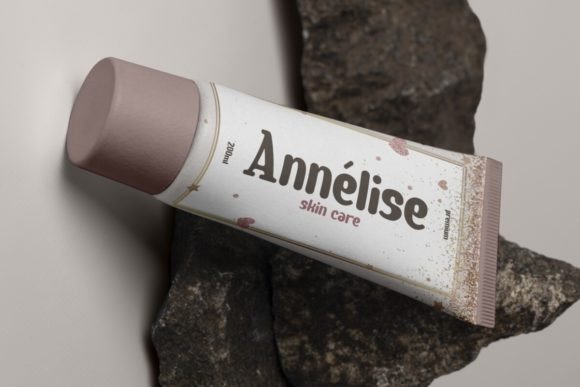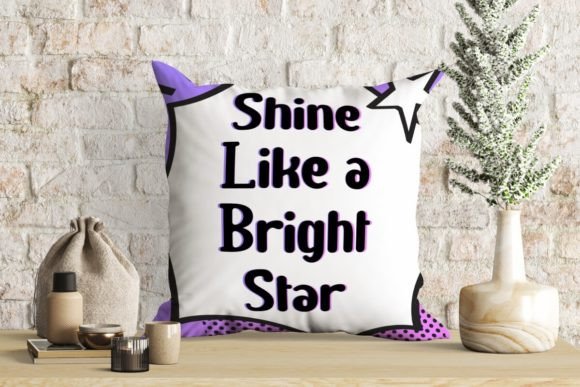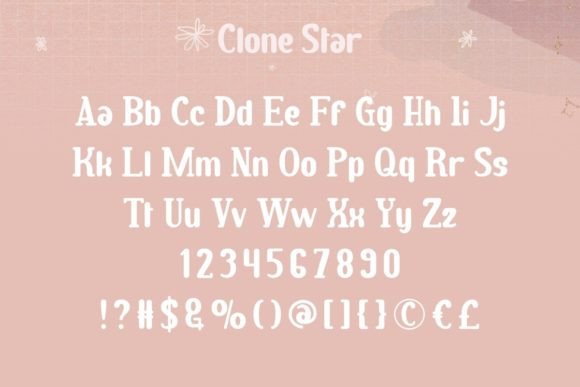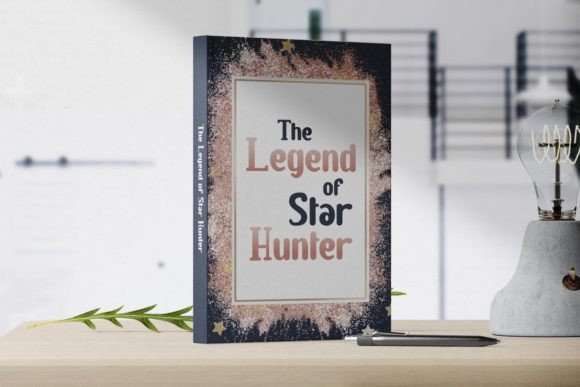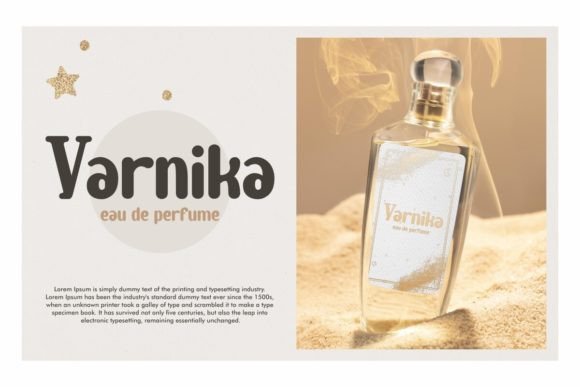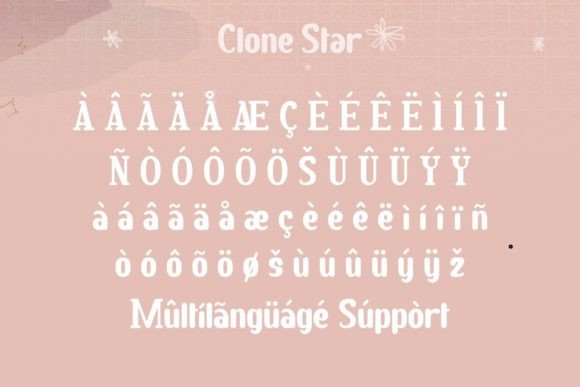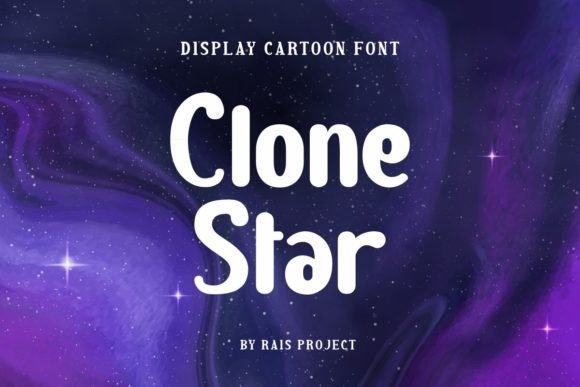
Introducing Clone Star Font: The Ultimate Cartoon Display Font
Are you tired of using the same old fonts in your designs? Look no further! Clone Star Font is a fresh and exciting display font that’s perfect for adding a touch of whimsy and fun to your creations. With its cute cartoon style, this font is sure to capture the attention of your audience and leave a lasting impression.
What Makes Clone Star Font Special?
Clone Star Font is a versatile font that’s packed with two different styles: Regular and Italic. This means you can use it to create a wide range of designs, from playful and casual to elegant and sophisticated. The font is also designed to work seamlessly with other font types, making it easy to mix and match to create a unique look.
So, what can you use Clone Star Font for? The possibilities are endless! Here are just a few ideas to get you started:
- Brochures: Add a playful touch to your marketing materials with Clone Star Font.
- Content: Use the font to create engaging social media posts, blog articles, and more.
- Cover: Create eye-catching book covers, magazine covers, and album covers with Clone Star Font.
- Invitation: Design fun and playful invitations for parties, events, and more.
- Labels: Use the font to create custom labels for products, gifts, and more.
- Posters: Create bold and eye-catching posters for advertising, promotion, and more.
- Product Packaging: Add a personal touch to your product packaging with Clone Star Font.
- Quotes: Use the font to create inspiring and motivational quotes for social media and more.
- Screen Printing: Design custom t-shirts, hoodies, and more with Clone Star Font.
- Stationery: Create fun and playful stationery, including notebooks, journals, and more.
- Sticker: Design custom stickers for laptops, water bottles, and more.
- Title: Use Clone Star Font to create attention-grabbing titles for videos, movies, and more.
- Website: Add a playful touch to your website with Clone Star Font.
Why Designers and Crafters Love Clone Star Font
Clone Star Font is a must-have for designers and crafters who want to add a touch of personality to their creations. Here are just a few reasons why:
- Unique Style: Clone Star Font has a unique and playful style that’s sure to stand out.
- Versatility: The font can be used for a wide range of designs, from casual to elegant.
- Compatibility: The font works seamlessly with other font types, making it easy to mix and match.
Tips for Using Clone Star Font
Here are a few tips for getting the most out of Clone Star Font:
- Experiment with Different Styles: Try using the Regular and Italic styles together to create a unique look.
- Mix and Match with Other Fonts: Don’t be afraid to combine Clone Star Font with other fonts to create a one-of-a-kind design.
- Use it for Headings and Titles: Clone Star Font is perfect for headings and titles, where you want to make a bold statement.
- Add a Personal Touch: Use Clone Star Font to add a personal touch to your designs, whether it’s a custom illustration or a handwritten note.
Clone Star Font is a versatile and playful display font that’s perfect for designers and crafters who want to add a touch of whimsy to their creations. With its cute cartoon style and two different styles, Regular and Italic, this font is sure to capture the attention of your audience and leave a lasting impression. Whether you’re creating brochures, content, covers, or more, Clone Star Font is the perfect choice.